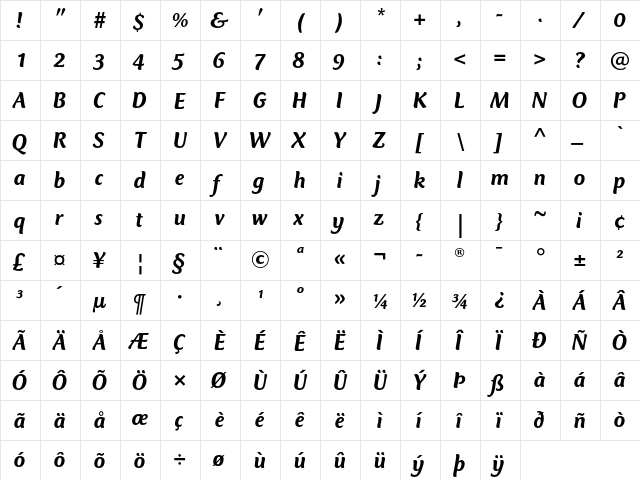
CT Mercurius Medium Italic
Design Context for CT Mercurius Typeface
CT Mercurius is a composed and adaptable typeface that performs quietly and consistently across a wide range of design contexts. The dynamic lean of this cut emphasises speed and emphasis in any layout.
Pro Tip: Try CT Mercurius for annotation and caption copy alongside an upright companion — the contrast in angle creates a dynamic but ordered typographic system.